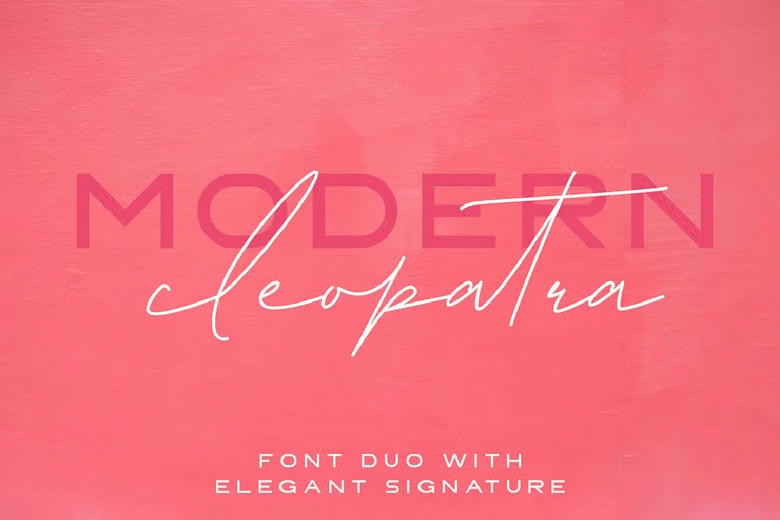
Modern Cleopatra Font
Modern Cleopatra Font is a beautiful high fashion font duo that makes for It’s perfect fit for signature logos, printed quotes, blog , social media headers, product packaging and a lot more. Modern Cleopatra Script includes over 77+ ligatures to make everything look totally hand-done, and alternates for each letter.
Modern Cleopatra Font Duo